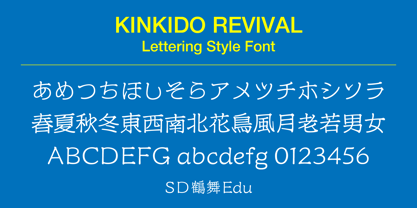
SDTsurumai Edu
The SDTsurumai Edu Font Family was designed by and published by Kinkido. SDTsurumai Edu contains 1 styles. More about this family
This typeface is based on Edo characters and can be used with JIS first-level kanji.
KINKIDO REVIVAL is a project to revive custom-made fonts created between 1997 and 2000. Handwritten Style Fonts are based on the basic styles of calligraphy: regular script, semi-cursive script, and cursive script. Lettering Style Fonts are based on Edo-period Japanese characters, modern design characters, and contemporary corporate characters. Font names ending with “Edu” are limited editions with approximately 1,000 Chinese characters, while those ending with “Bas” have approximately 3,000 Chinese characters.